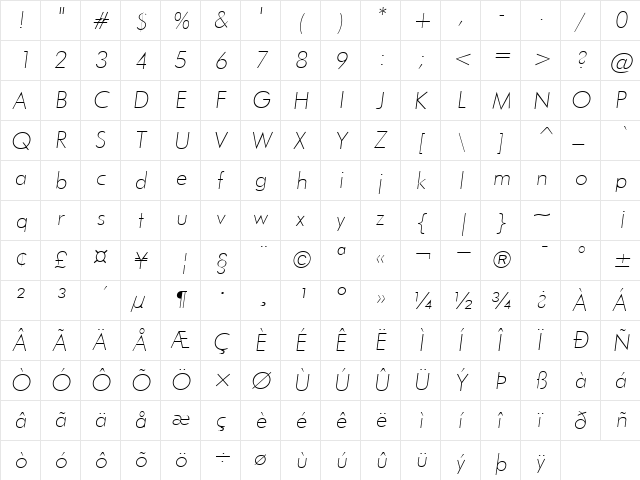
Futura Thin Italic Font Preview
Design Context for Futura Thin Typeface
Futura Thin has a distinctly futuristic character, with geometric precision and clean angles that feel at home in technology, gaming, and sci-fi contexts. The dynamic lean of this cut emphasises speed and emphasis in any layout. The delicate stroke weight brings airiness and refinement to layouts.